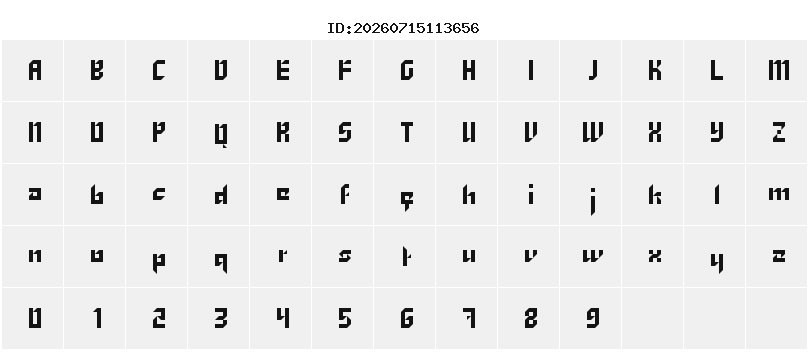
• Designer: Tjarda Koster
About Zhang.ttf
Zhang.ttf is a modern, elegant sans-serif font designed for ultimate readability and visual harmony. Perfect for branding, headlines, web design, and print materials.